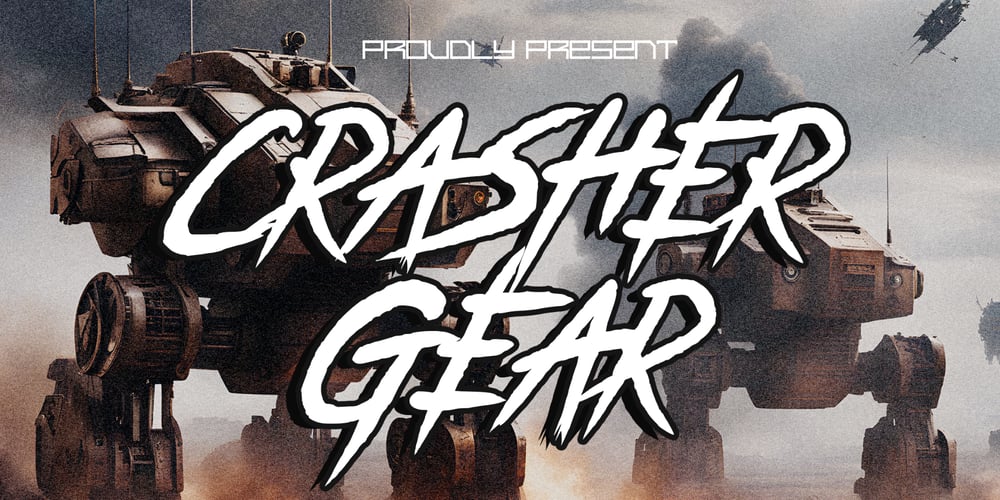
Crasher Gear
Crasher Gear font
Crasher Gear Font Family was designed by Mohamad Farhan Ramadhan and published by Mofr24. Crasher Gear contains 6 styles and family package options. Introducing “Crasher Gear,” a captivating handwritten font with a monospaced, grunge-inspired design. Its multilingual support ensures global communication. With Regular, Italic, Oblique Italic, Bold, Bold Italic, and Bold Oblique Italic styles, it’s ideal for posters, marketing, T-shirts, YouTube, games, and more. Embodying a bold, dystopian spirit, this versatile font leaves a lasting impression. Pair it seamlessly with various typefaces. Unleash creativity with “Crasher Gear” today.